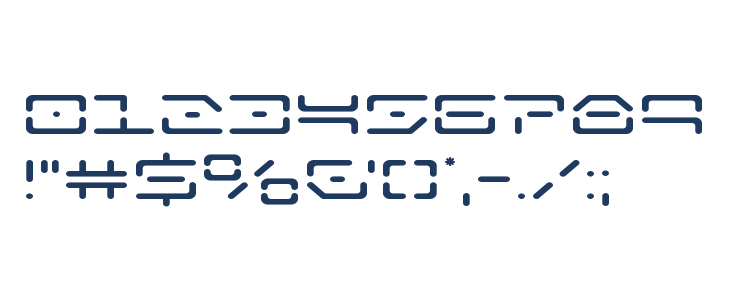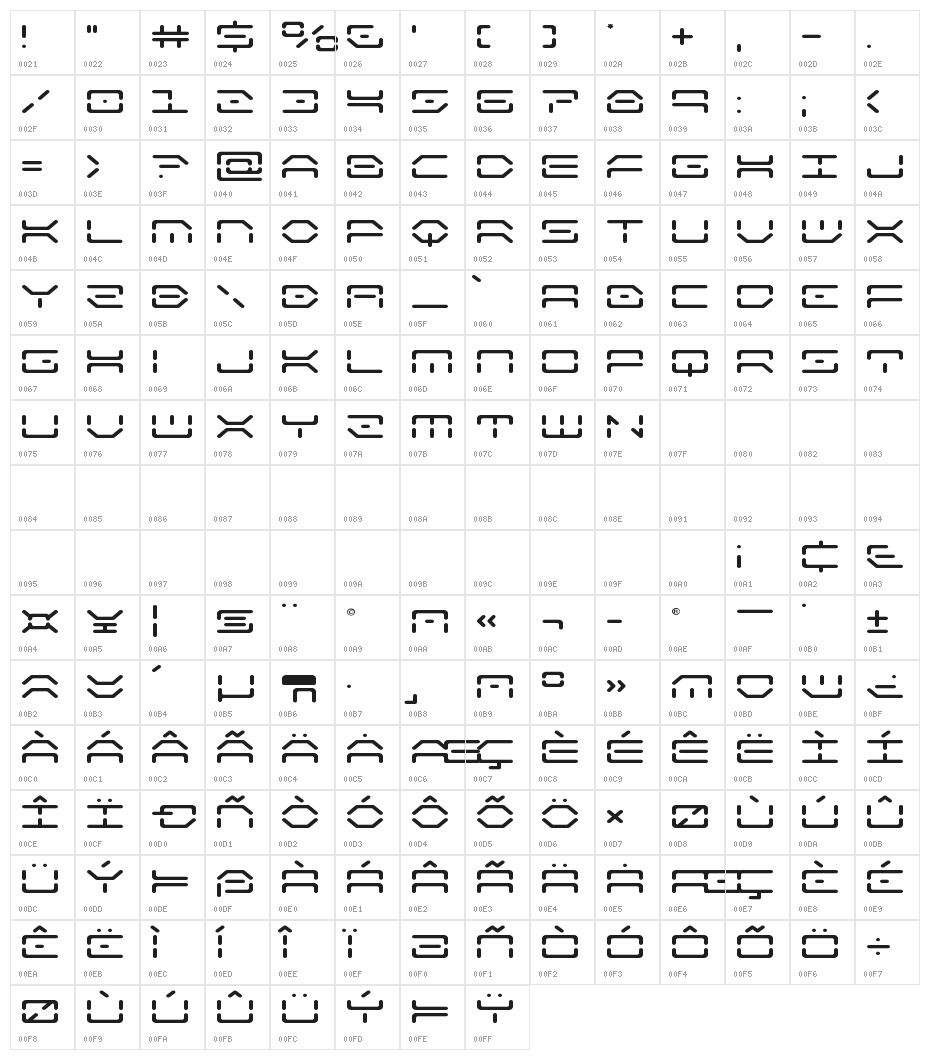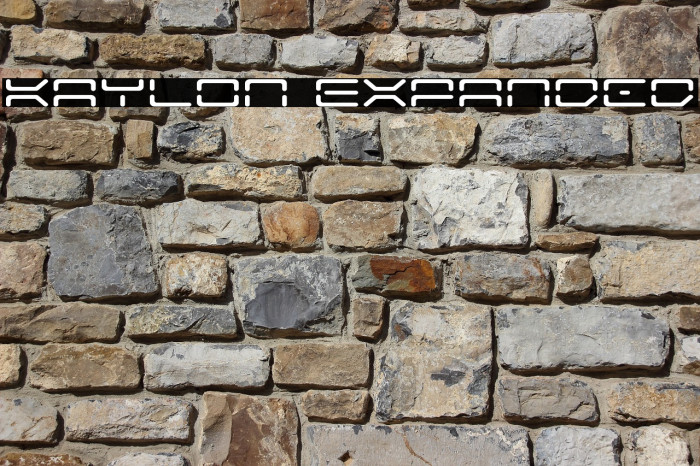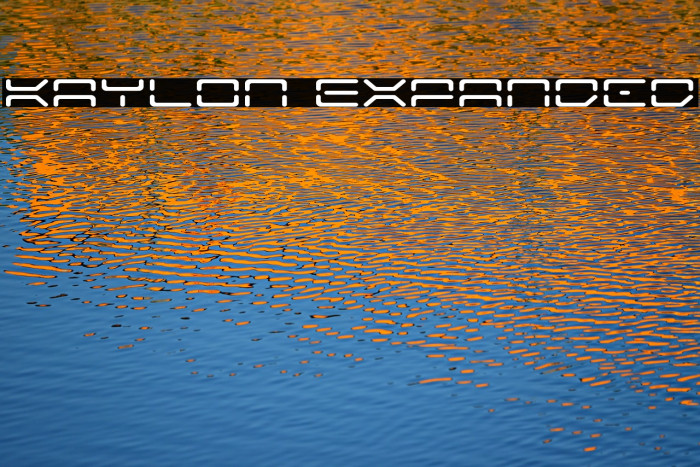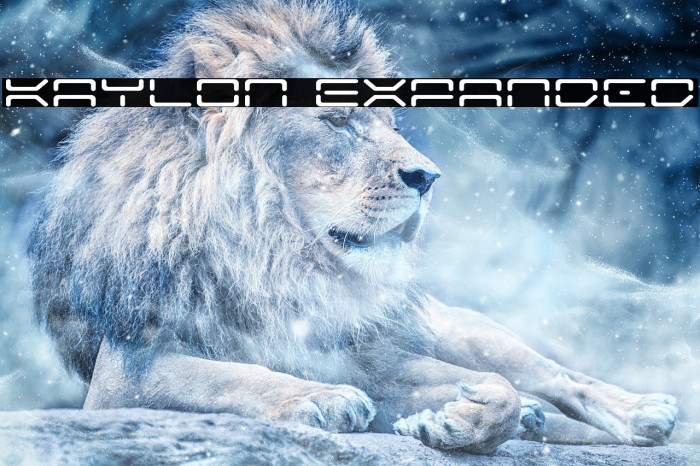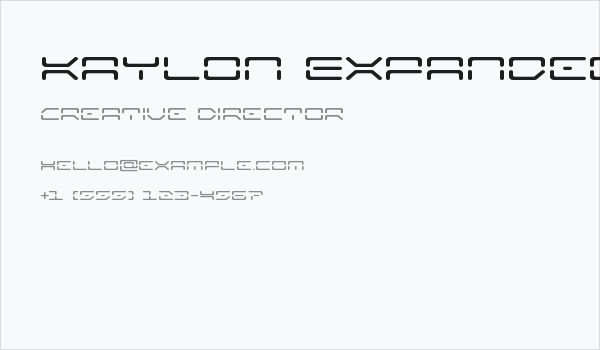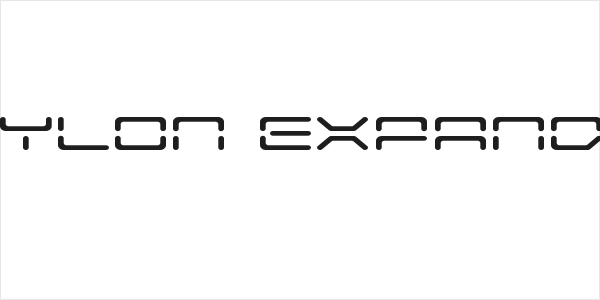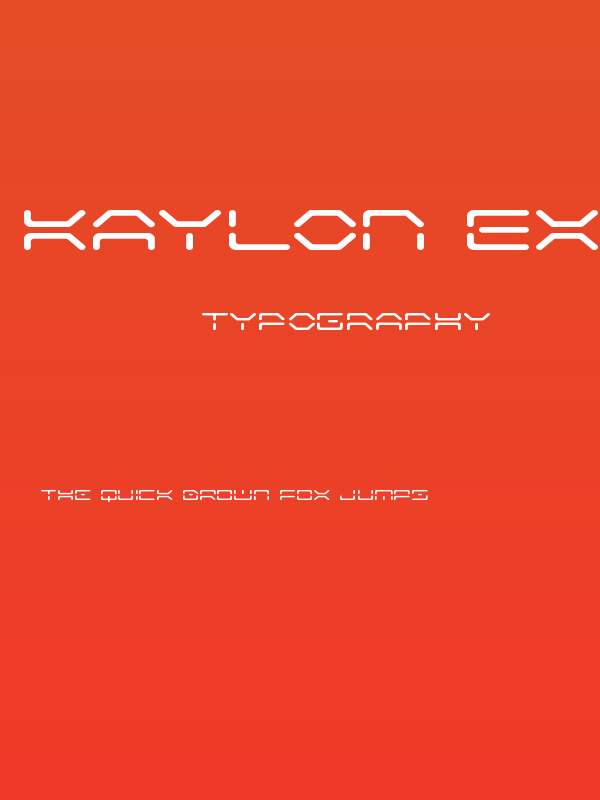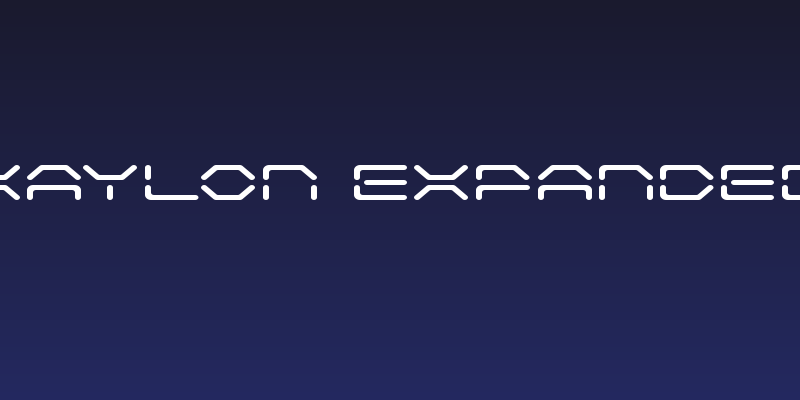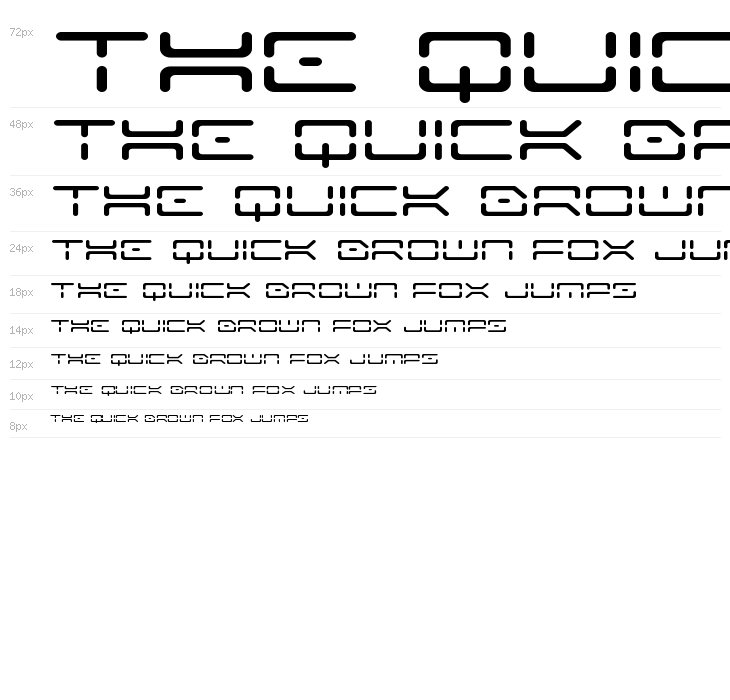
Kaylon Expanded Font
Kaylon Expanded Description
This font features a futuristic and geometric design, characterized by its unique cut-out style that gives it a digital and high-tech appearance. The characters are constructed with a series of straight lines and rounded corners, creating a sense of movement and modernity. The uppercase and lowercase letters maintain a consistent style, with a uniform thickness that adds to its sleek look. The numerals and special characters follow the same design principles, ensuring a cohesive appearance across all glyphs. This font is ideal for projects that require a modern and innovative touch, such as technology branding, digital interfaces, and sci-fi themed designs.
Character SpacingMonospaced
ContrastLow
Overall StyleModern
Use CaseHeadlines, Logos
Proposed ProjectsIdeal for technology branding, digital interfaces, sci-fi themes, and modern advertising.